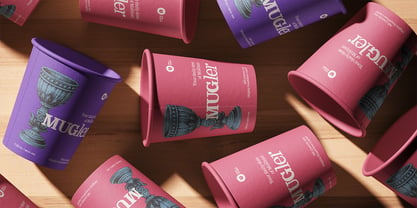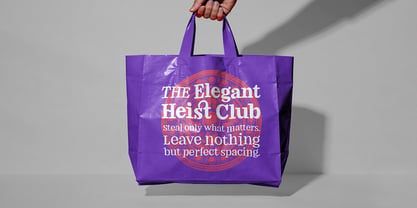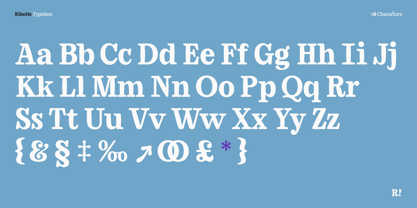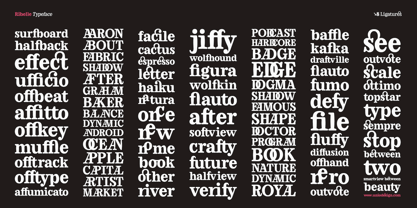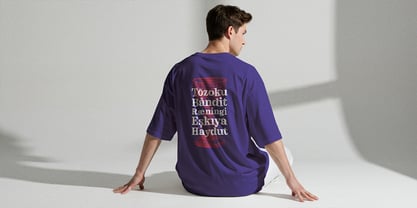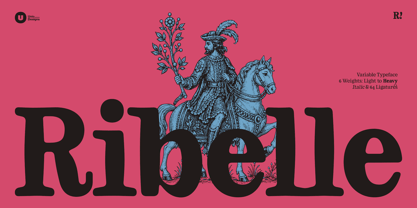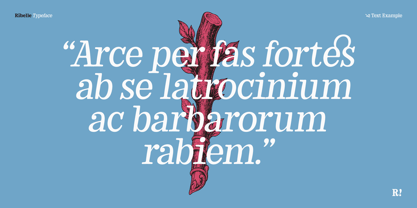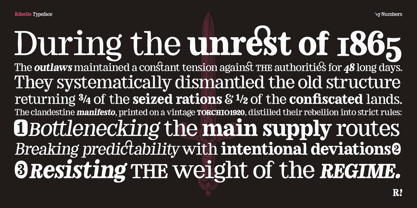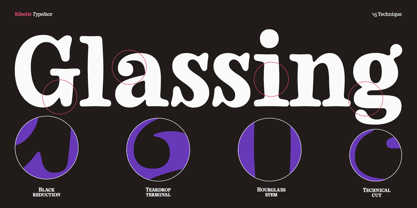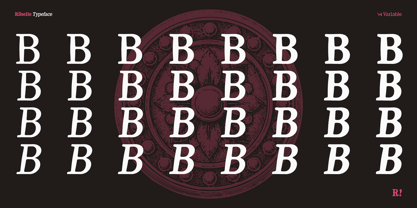
Ribelle Variable
Ribelle is a contemporary rounded serif typeface rooted in the warmth, vitality, and quiet confidence of Italian typography. Drawing from the visual culture of vintage posters, printed matter, and a strongly expressive graphic tradition, Ribelle distills the spirit of that culture into a fascinating typographic system where discipline meets subordination. Ribelle embodies the archetype of freedom, risk, and individualism — a system where structure and rebellion coexist in constant tension.
Design and Details
Every glyph in Ribelle is shaped by an architectural tension. A characteristic bottleneck — an hourglass-like narrowing — holds back the ink at the base of each form, as if the letter itself were resisting the weight it carries. This structural tension defines the attitude of the typeface.
Key characters become true signatures — letters that introduce intentional deviations interrupting predictability without compromising the coherence of the system. Ligatures are not treated as decorative refinements, but as expressive elements capable of genuinely shifting the tone and personality of a composition.
Each letter seems to carry a will of its own, yet the overall system remains controlled and precise. Across the weight range, the design adapts with purpose. Lighter styles preserve an airy and refined quality, while heavier weights are progressively recut and compressed. In the Black weight, the "rebel" fully emerges: tighter spacing, increased tension, and a denser silhouette push the typeface toward its most assertive expressive edge.
Rhythm and Applications
Proportions are precisely calibrated to perform across branding, packaging, editorial, and digital environments, with a controlled rhythm that resists monotony. Ribelle is a typographic system that appears to disobey, yet is built with even greater intention. Every deviation is deliberate, and every tension resolved within a coherent structure.
Features
• Full family with italic variants for every weight
• Meticulously designed custom ligatures for editorial and identity work
• Small caps, circled numerals, fractions, and an extended symbol set
• Highly expressive alternate glyphs for advanced typesetting
• Broad multilingual support across Latin-based scripts
Ideal For
Brand identities, editorial layouts, music packaging, cultural campaigns, poster design, and retro-inspired digital work.
Ribelle is a typeface for those who understand that the most compelling forms are born where rebellion meets structure — a rigorous design that embraces contrast as a method, not a contradiction. Fight on.